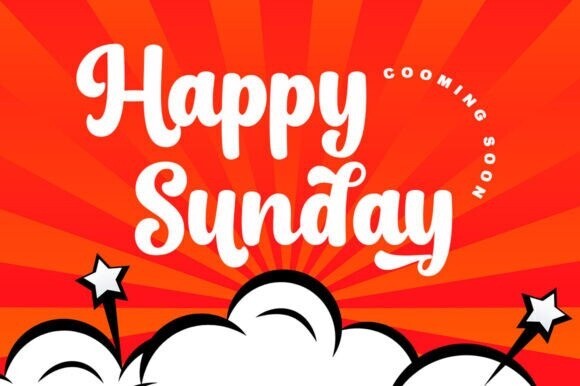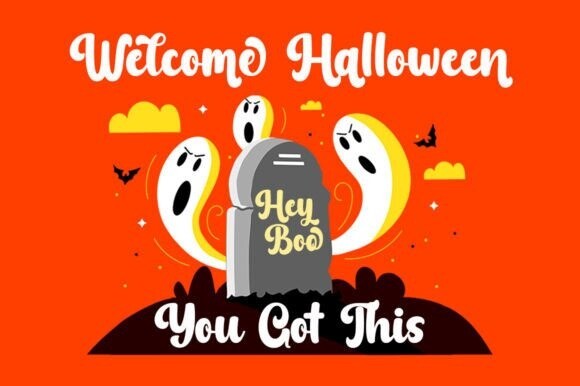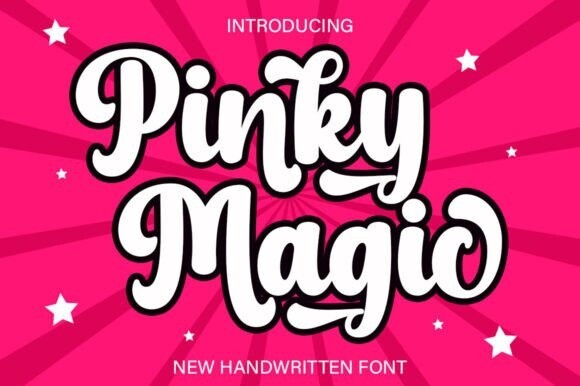
Pinky Magic Font
Pinky Magic Font is playfully nostalgic and delivers an incredible display font. Use this display font to add that special retro touch to any design idea you can think of! Masterfully designed to become a true favorite, this font has the potential to bring each of your creative ideas to the highest level!